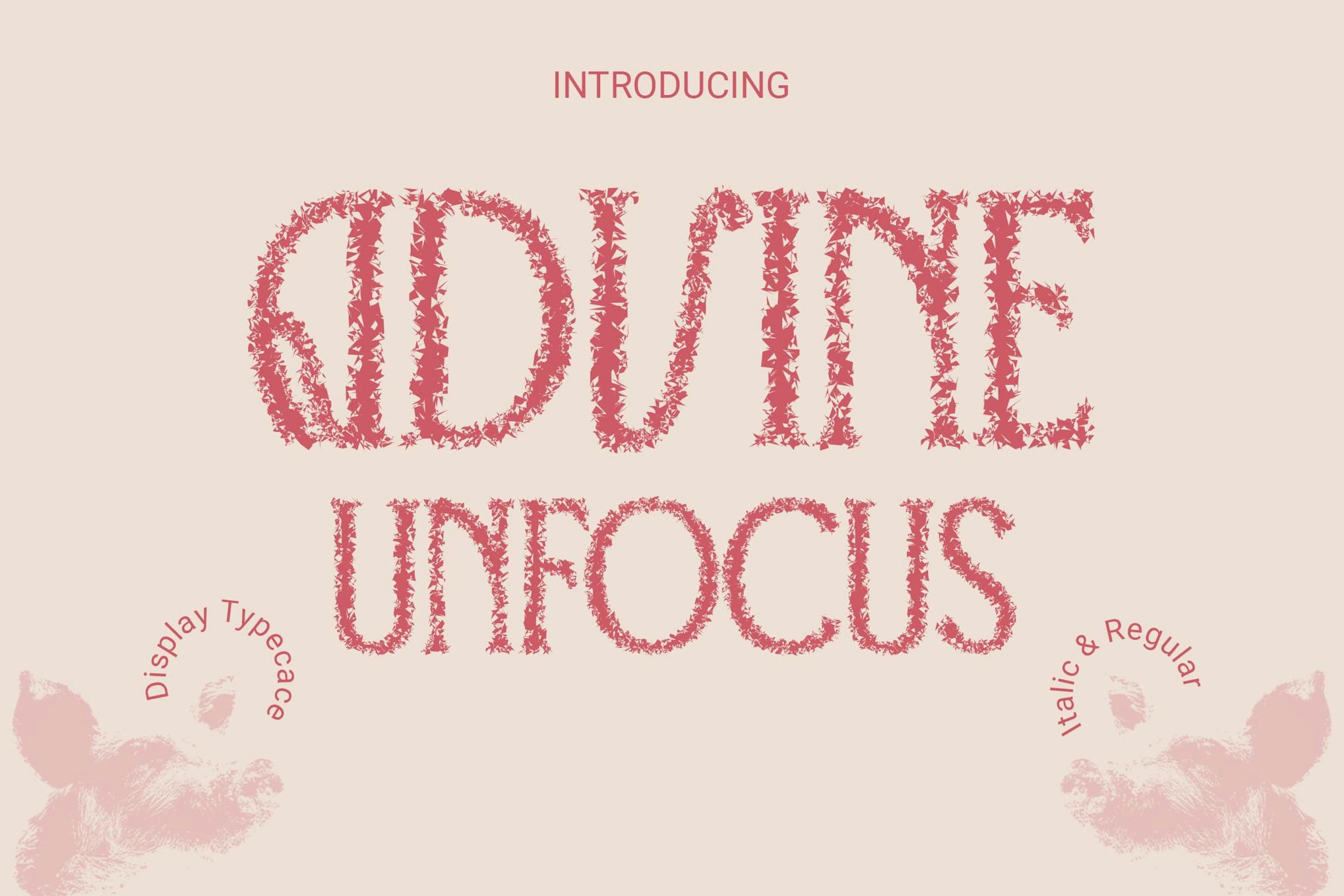
Advine Unfocus Font
Advine Unfocus Font elevates premium wine estate branding, sophisticated vineyard signage, elegant wine tasting event materials, upscale winery marketing campaigns, prestigious wine collection catalogs, refined sommelier certifications, luxury wine bar menus, vintage wine auction promotions, boutique vineyard tours, exclusive wine club communications, artisanal wine packaging, and divine wine experiences where advisory sophistication and atmospheric unfocus create transcendent enological journeys.
This transcendent typeface generates excitement through its perfect embodiment of divine wine culture and sophisticated advisory expertise that creates typography elevated beyond ordinary commercial applications. Advine Unfocus Font captures the essence of wine divinity with its softly ethereal letterforms that suggest the mystical transformation of grapes into liquid poetry and the sacred ritual of wine appreciation. The font's sophisticated design approach incorporates elements that evoke ancient wine traditions, spiritual connection to terroir, and the advisory wisdom passed down through generations of vintners and sommeliers. Its distinctive character reflects the reverence, expertise, and transcendent experience that define authentic wine culture and divine beverage appreciation.
The Advine Unfocus Font family encompasses multiple enological variations including Regular, Light, Medium, Bold, and Divine versions, each maintaining the font's characteristic wine sophistication while offering different levels of transcendent impact. The collection features wine-inspired blur effects, vineyard atmospheric treatments, and divine textures that enhance its sacred aesthetic. Additional elements include grape vine ornaments, wine goblet symbols, vineyard decorative borders, and divine flourishes that reinforce the font's connection to sacred wine traditions and advisory sommelier expertise.
Wine industry professionals and luxury beverage connoisseurs consistently select Advine Unfocus Font Free Download for projects requiring typography that communicates divine wine expertise and transcendent beverage sophistication. This remarkable typeface excels in applications where establishing premium credibility and conveying sacred wine knowledge are essential for luxury market success. The font's divine wine qualities make it particularly effective for premium wineries, luxury wine services, and exclusive wine education programs targeting connoisseurs who appreciate transcendent wine experiences and advisory expertise.
Whether you're designing premium winery identities, creating luxury wine marketing materials, developing sommelier educational content, or crafting divine wine experience promotions, Advine Unfocus Font delivers unmatched enological authenticity. Its ability to convey wine divinity, advisory expertise, and transcendent sophistication makes it invaluable for wine professionals seeking typography that genuinely elevates wine culture to sacred levels. The font's divine presence ensures your designs will communicate the spiritual reverence and advisory wisdom that define exceptional wine communications and transcendent enological experiences.